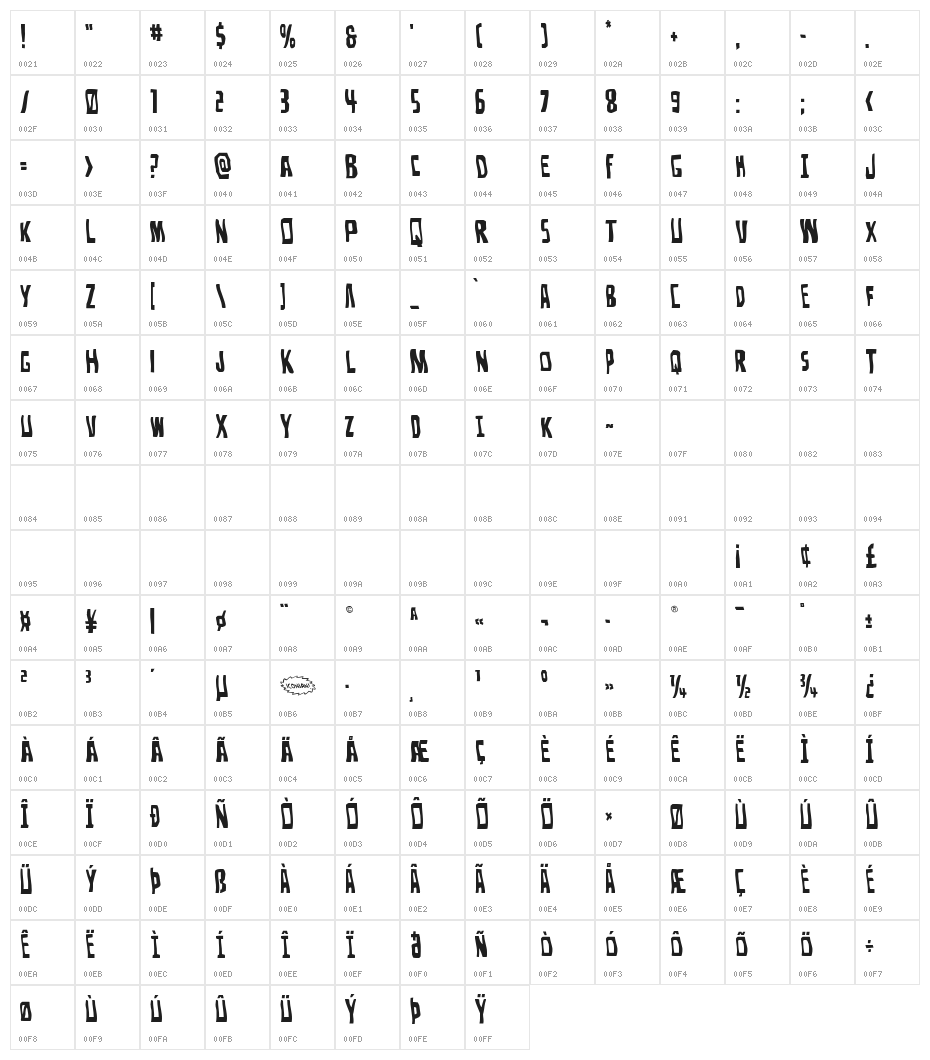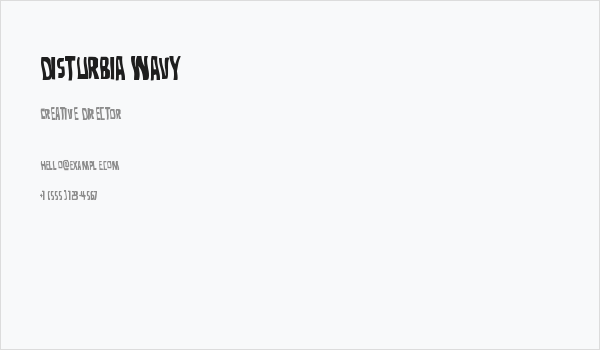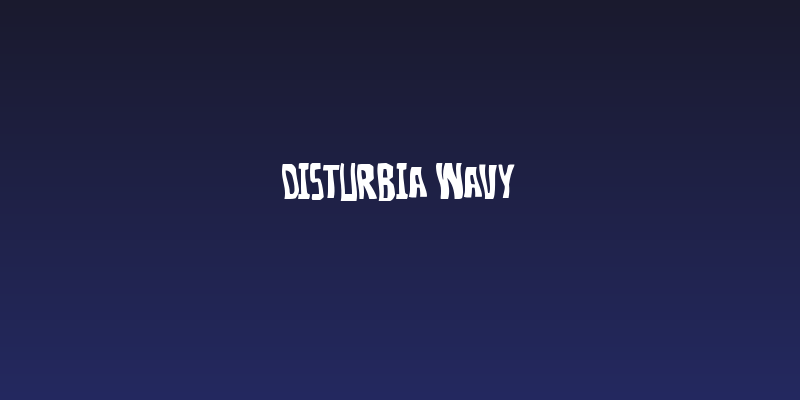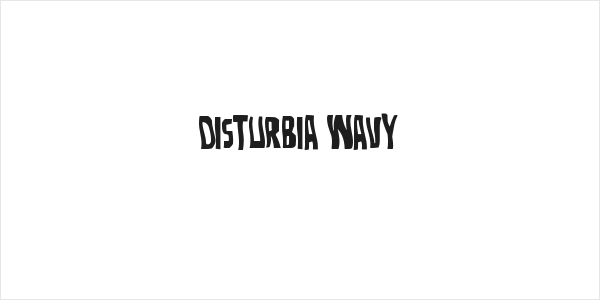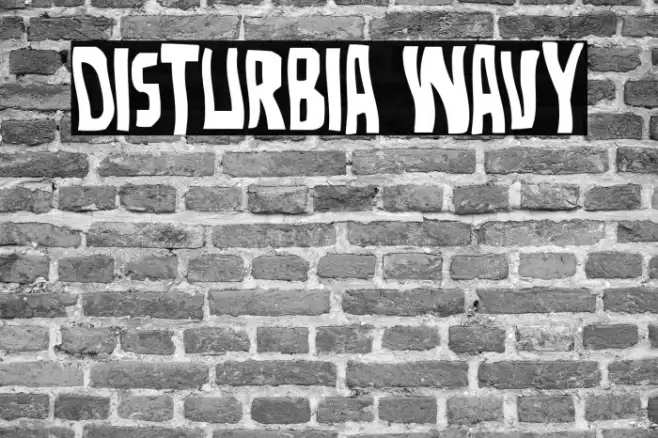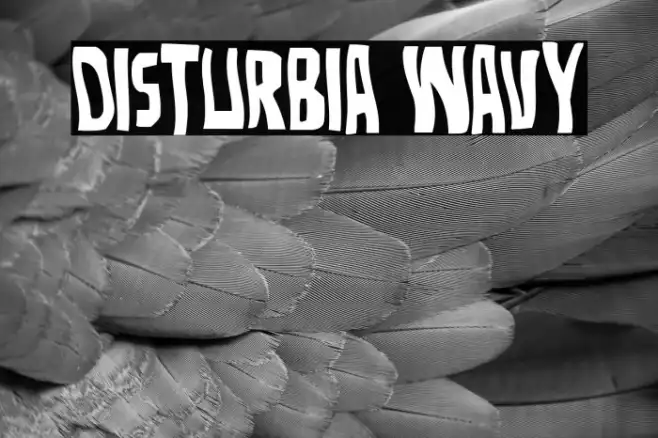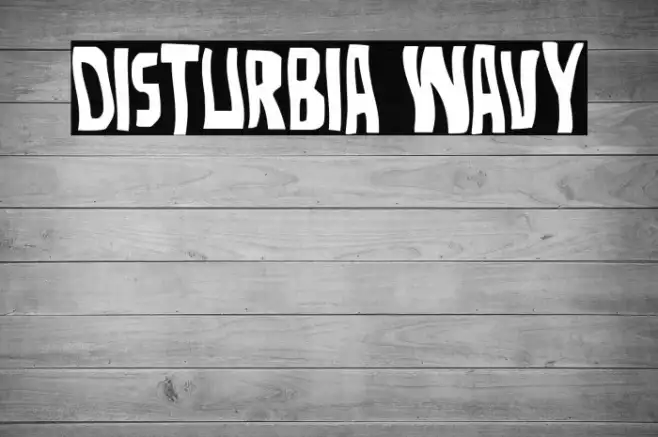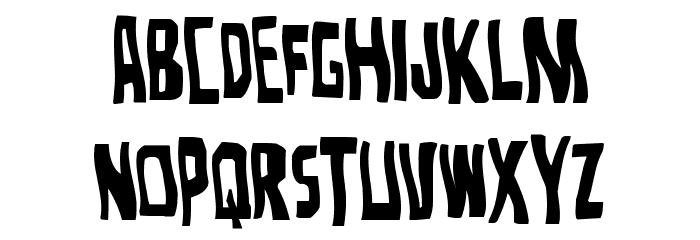
Disturbia Wavy Font
Disturbia Wavy Description
This font features a unique, wavy design that gives each character a sense of movement and fluidity. The uppercase and lowercase letters share a consistent style, with exaggerated curves and irregular shapes that create a dynamic and playful appearance. The numbers and special characters maintain this wavy aesthetic, ensuring a cohesive look across all glyphs. The font's bold and striking presence makes it ideal for attention-grabbing designs. Its quirky and unconventional style is perfect for projects that require a touch of creativity and individuality.
| Proposed Projects | Ideal for posters, album covers, branding projects, and creative advertisements. |